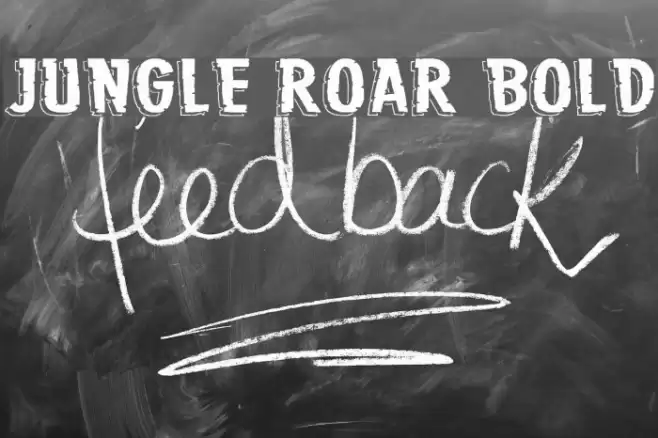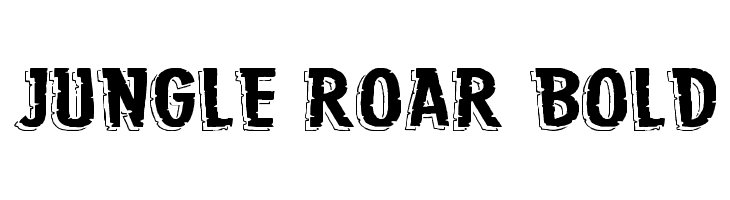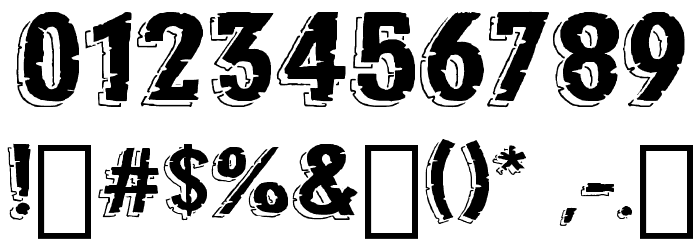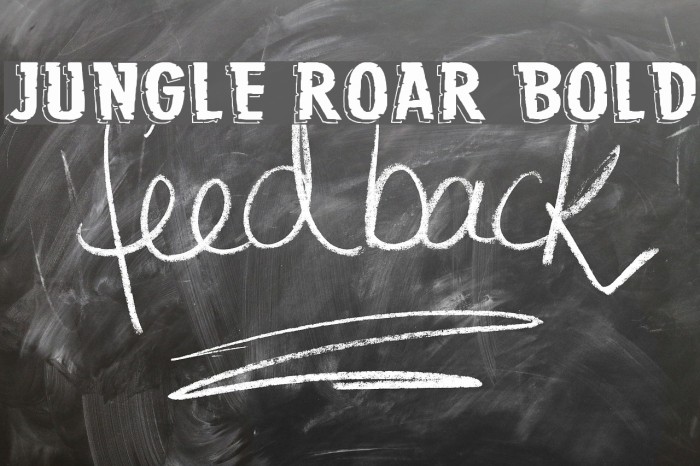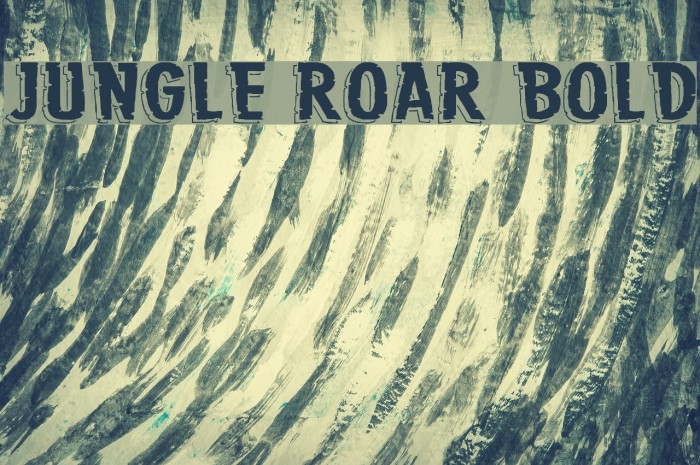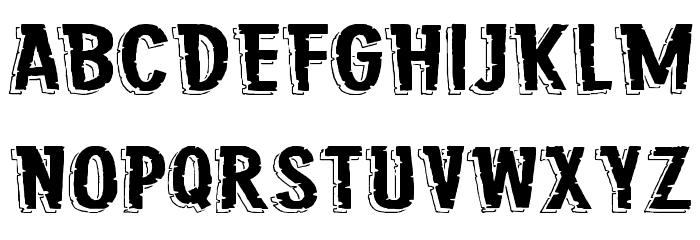
Jungle Roar Bold Font
Jungle Roar Bold Description
This font features a bold and adventurous style, characterized by its rugged and distressed appearance. The letters have a strong, impactful presence with a textured, rough edge that suggests a sense of wildness and untamed energy. The uppercase and lowercase letters maintain a consistent boldness, while the numbers and special characters follow the same design ethos, ensuring a cohesive look. The font's unique style makes it stand out, ideal for projects that require a touch of excitement and dynamism.
A bold, rugged font with a distressed, adventurous style from Cartoon fonts.